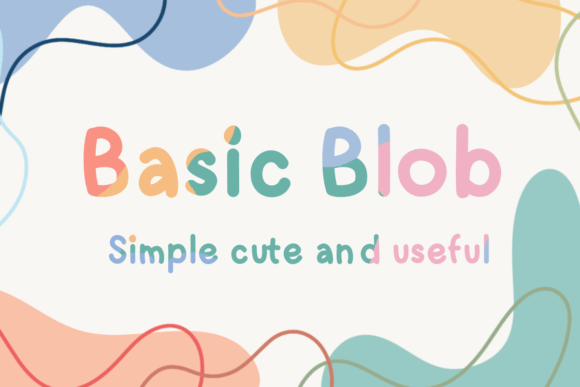
Basic Blob Font for Headlines, Posters and Branding Projects
Basic Blob is a fun and friendly display typeface built for maximum visual impact in headlines, poster layouts, and brand graphics. Its soft, blobby structure enhances designs with a sense of approachability and charm.
As a FONT entity, Basic Blob brings a lighthearted tone to typographic compositions, while still delivering the clarity and structure needed for professional layouts across multiple platforms.
- Poster and flyer designers
- Brand creators seeking playful identity elements
- Teachers making visual classroom materials
- DIY crafters and digital printmakers
- Social media content creators
- Posters, headlines, and cover graphics
- Printable wall art and event signage
- Custom logos and visual branding assets
- Merchandise designs and apparel prints
- Social templates and product display visuals
- Bold and quirky look ideal for expressive designs
- Rounded letterforms add warmth and approachability
- Great for posters, branding, and playful marketing
- Balanced readability and creativity
| Feature | Basic Blob Font | Generic Display Font | Generic Sans Serif Font |
| Design Style | Rounded, fun, playful | Bold or artistic display | Clean, structured |
| Primary Use | Posters, branding, signage | Marketing, packaging | Digital layouts and UI |
| Tone | Approachable and expressive | Stylized or dramatic | Neutral and modern |
| Crafting Compatibility | Good for cut and print | Moderate | Limited for cutting machines |
| Branding Appeal | Great for playful brands | Good for artistic brands | Best for tech or modern brands |